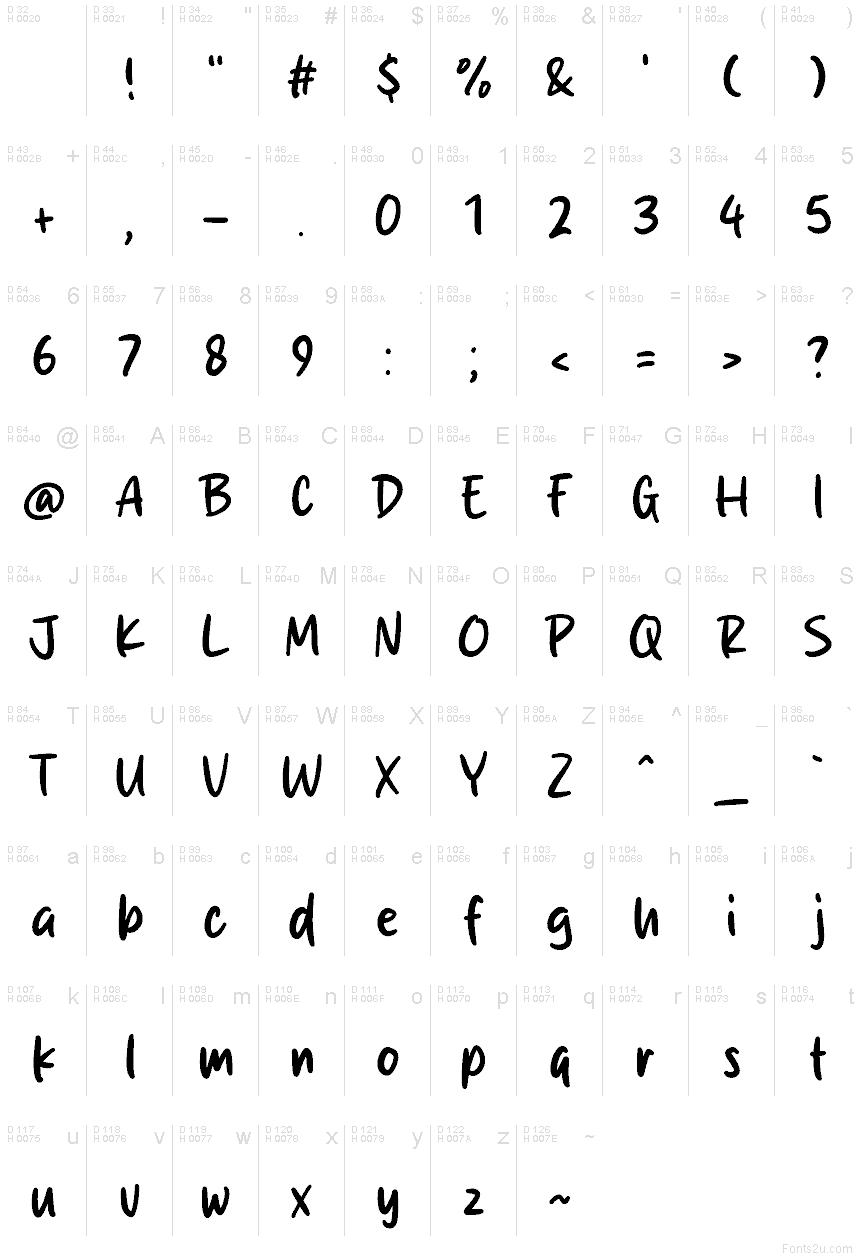
Golden Kristo
Golden Kristo font by Origin Type is a free handwritten typeface that captures the feel of a bold paint marker without losing clarity. The strokes are thick, inky, and rounded at the edges, giving each word a friendly weight while staying easy to read at a glance. Letters sit close with a natural rhythm, so your text feels like a confident note jotted in one smooth motion rather than scattered doodles.
Using Golden Kristo, this free font shines on product packaging, quote graphics, greeting cards, kids’ branding, social posts, and playful logo wordmarks. Its casual energy makes messages feel personal and upbeat, even in short headlines. Pair it with a clean sans serif in a lighter weight for body text, letting Golden Kristo handle punchy titles and callouts where its chunky, handwritten character can really stand out.